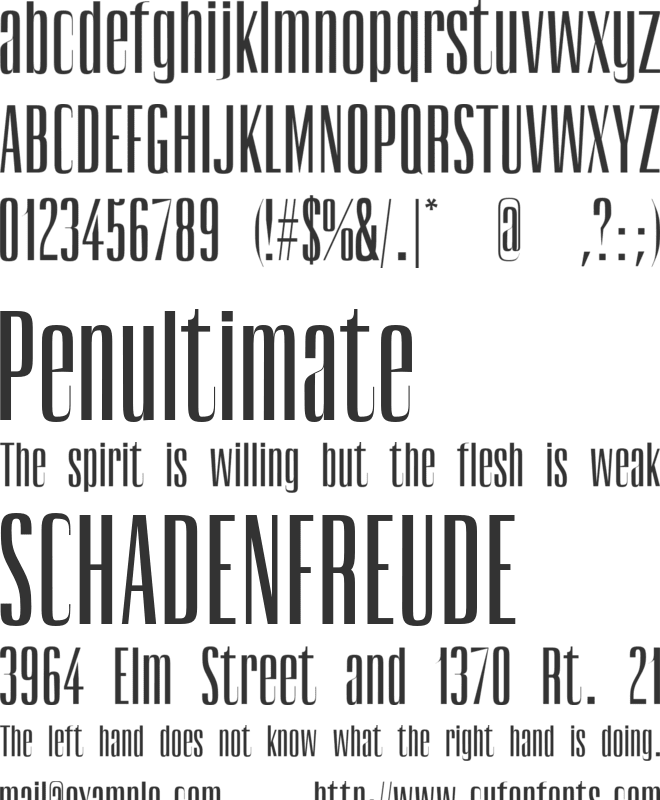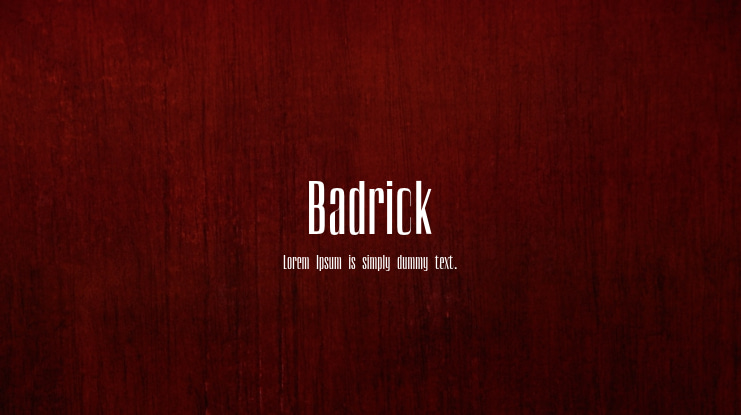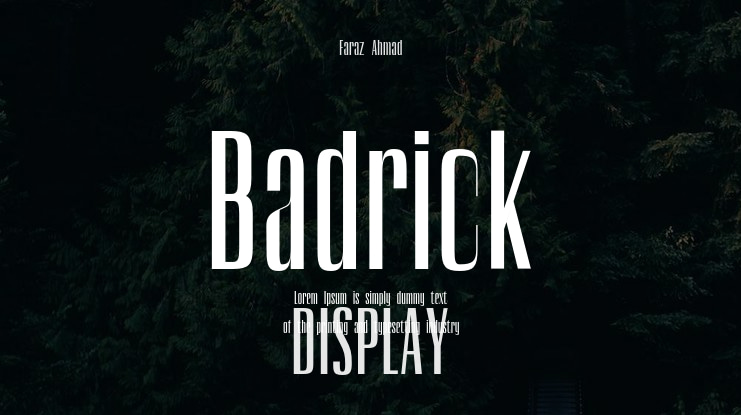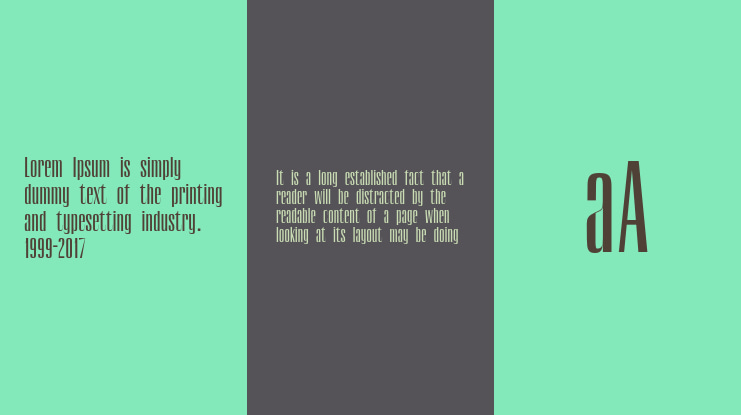
Badrick Font
This font is ideal for creating eye-catching logos, compelling texts, engaging presentations, captivating posters, professional magazines, informative notices, bold titles, memorable name cards, captivating web layouts, standout invitations, striking headers, and cohesive branding for any project.